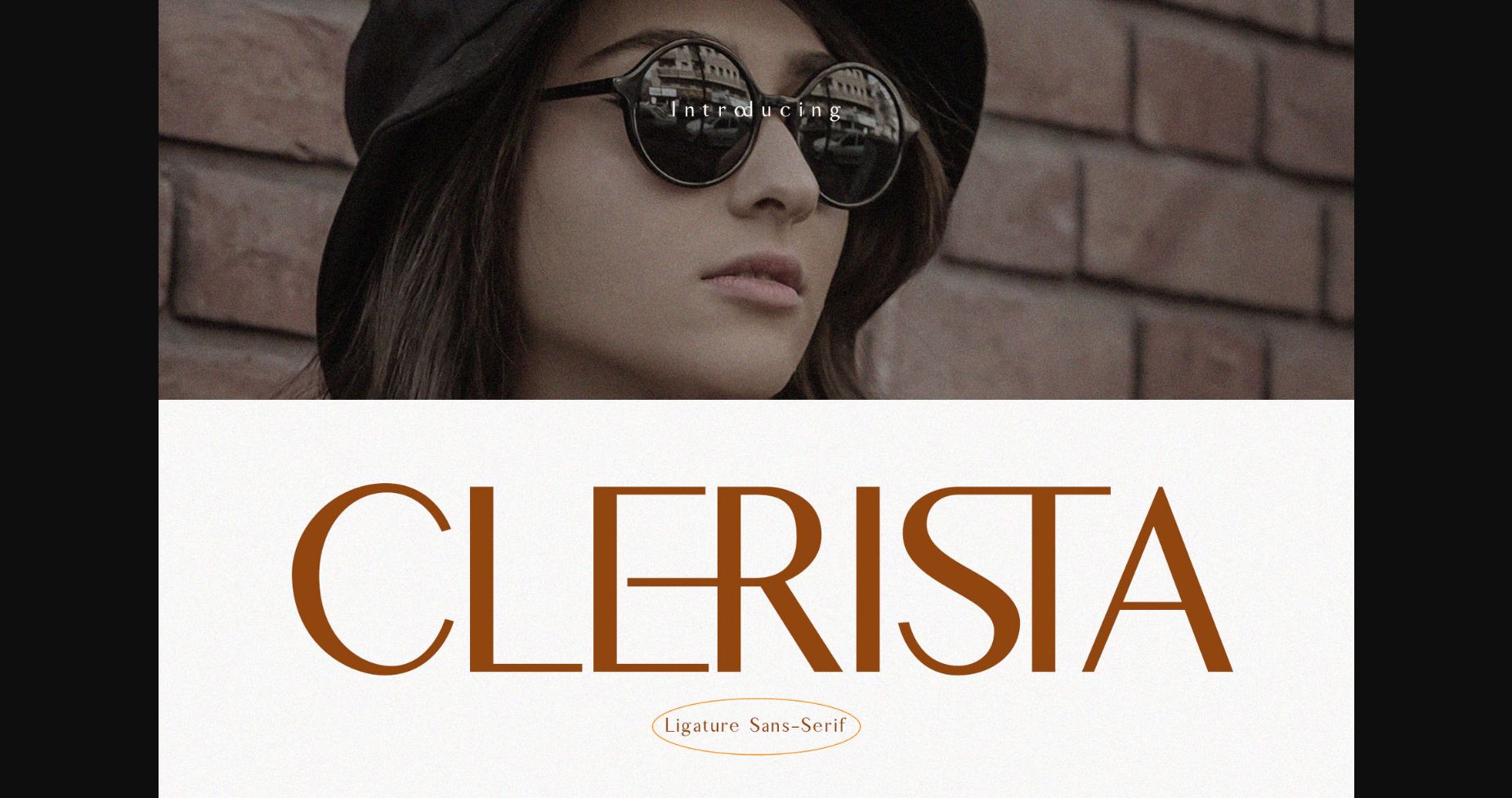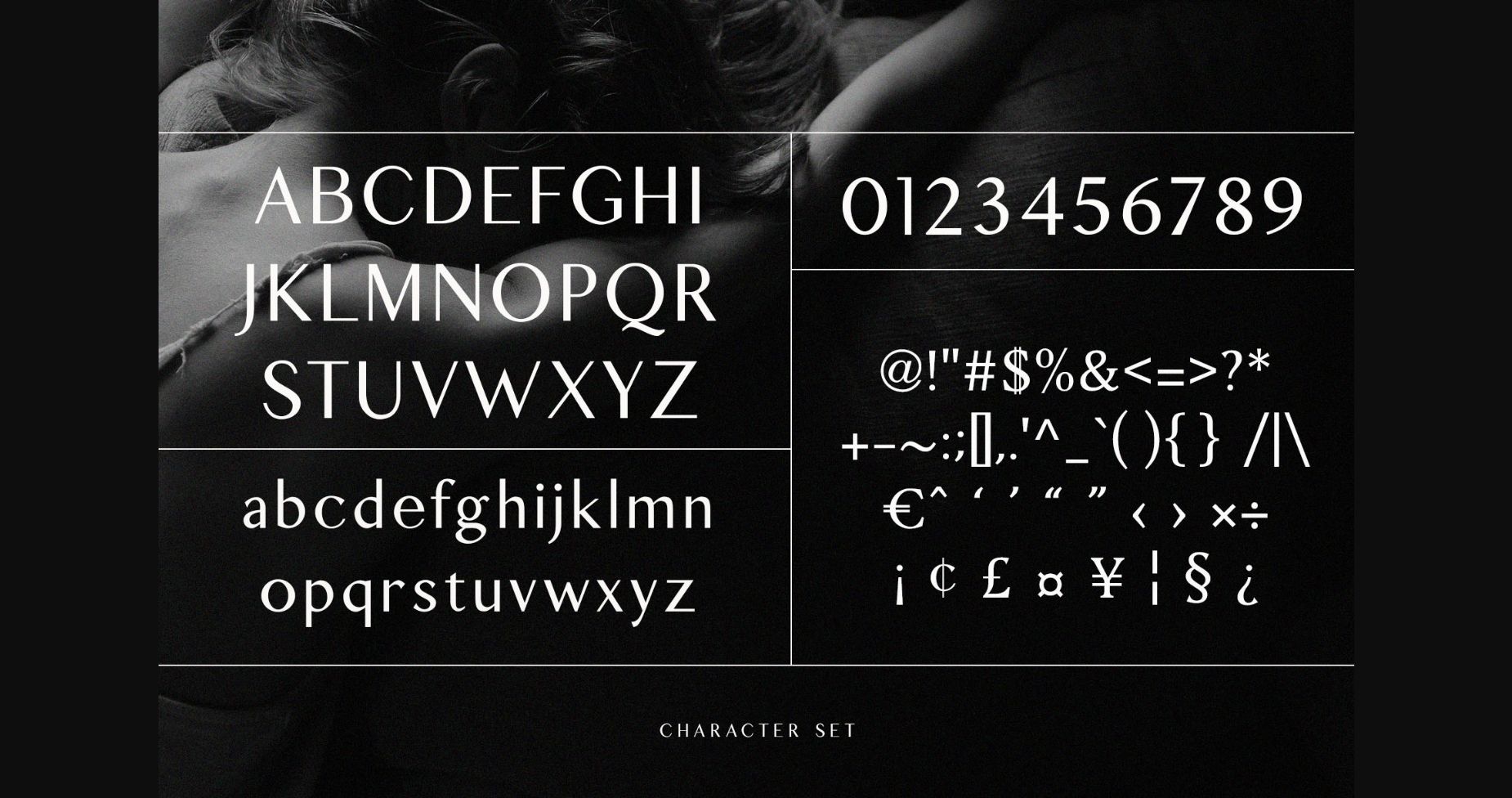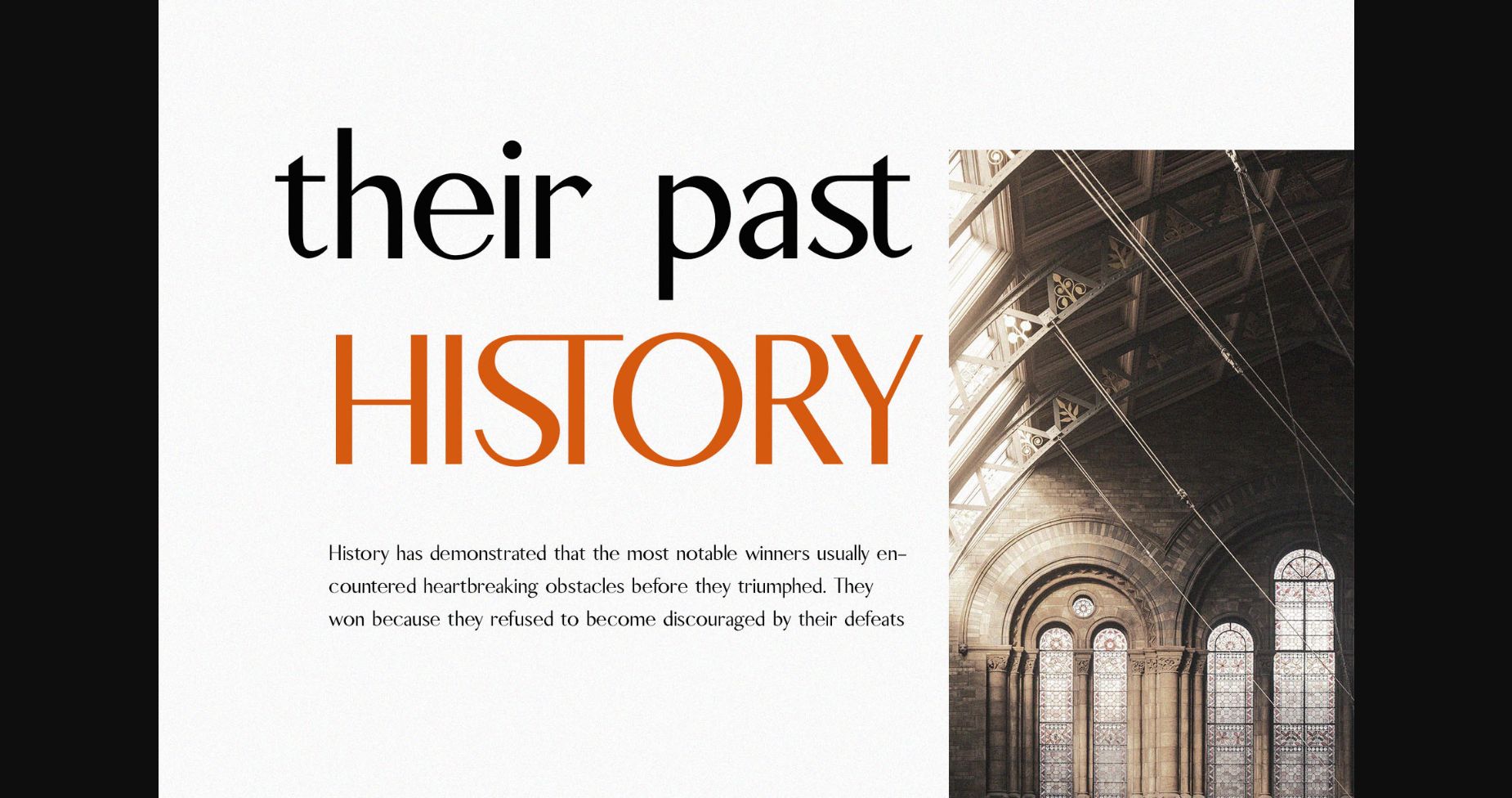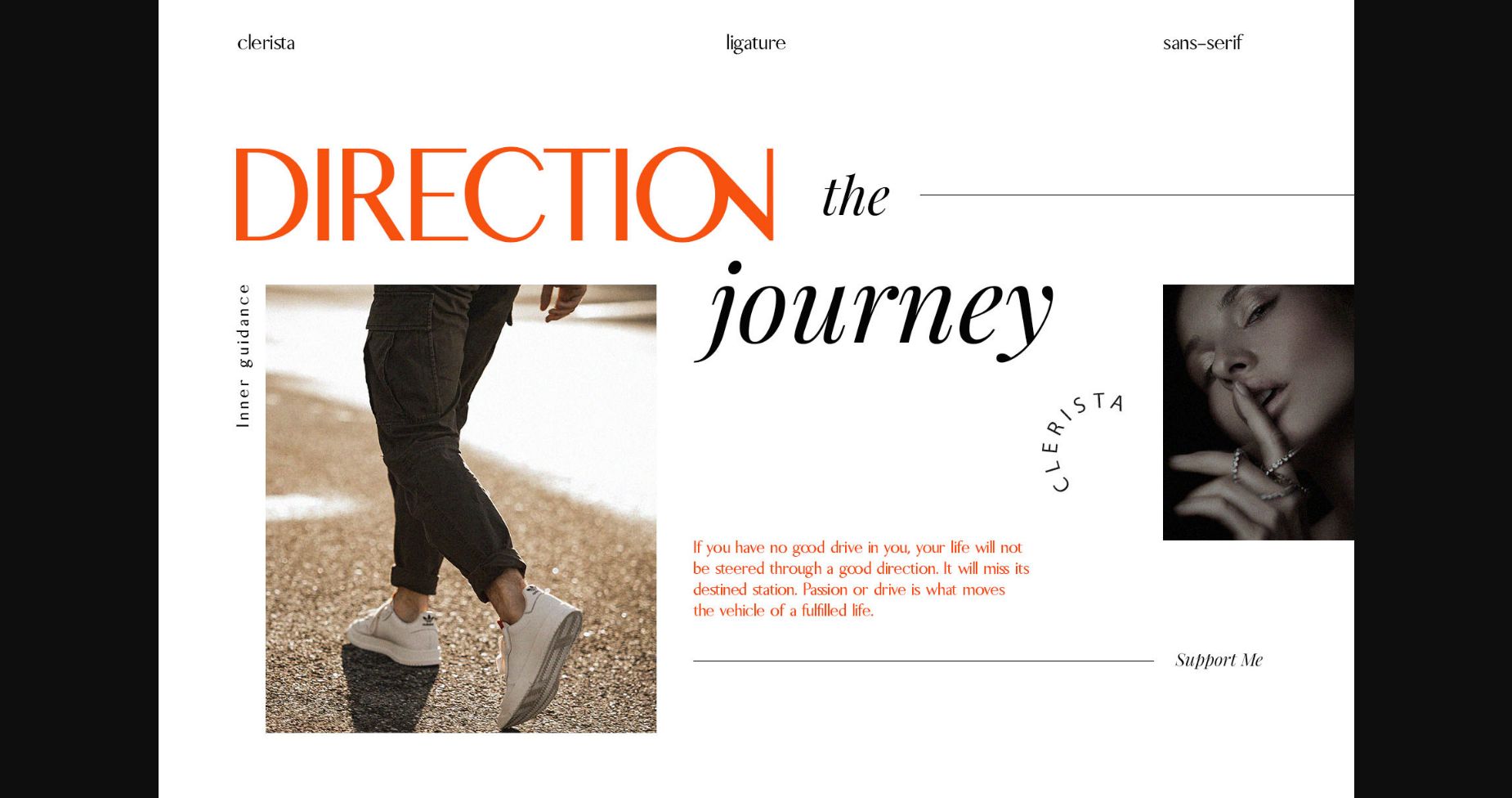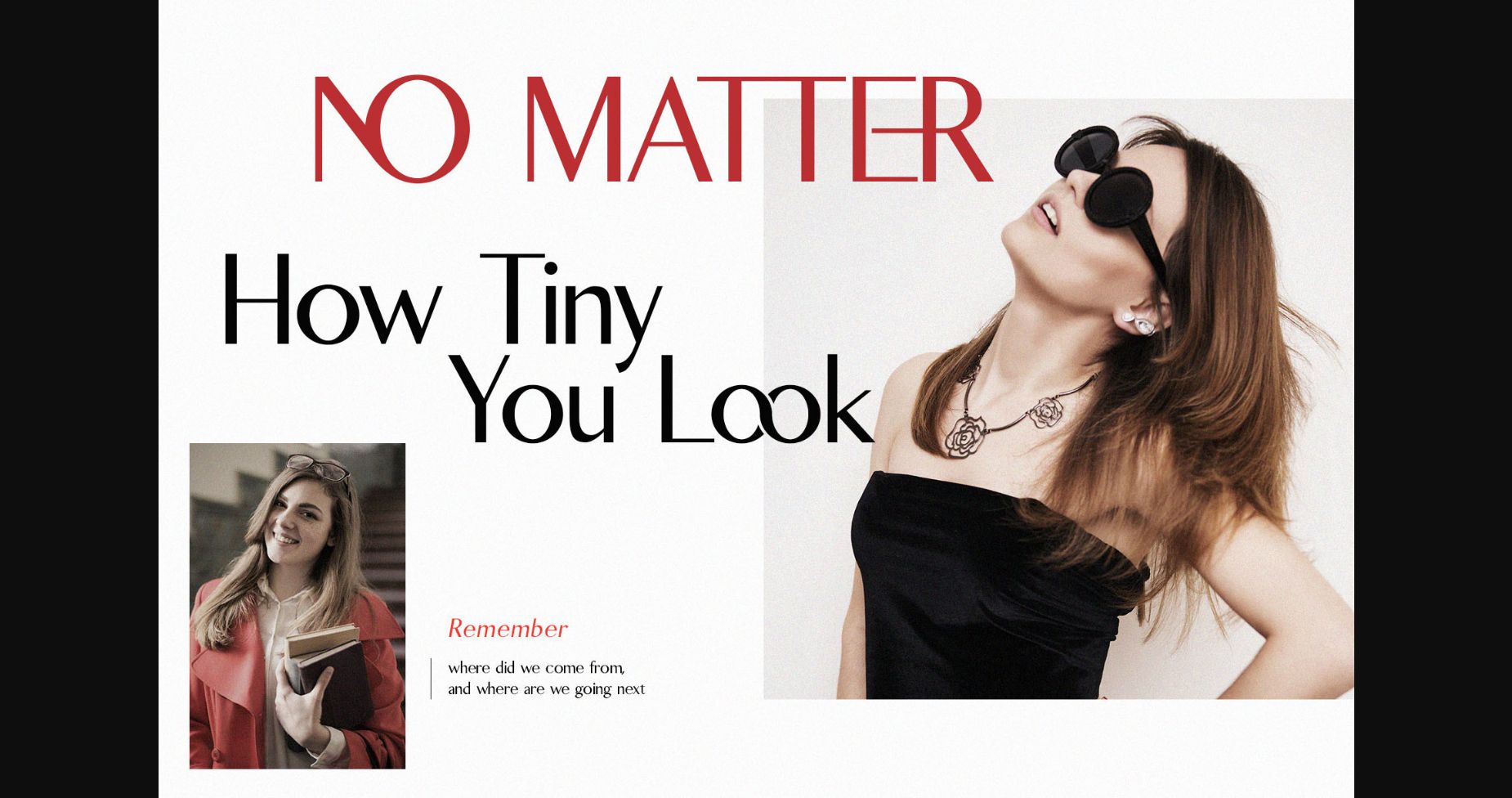
Clerista Font
Clerista Font Poster 1
About Clerista Font
Clerista is a modern sans serif font that emanates a sense of sophistication and versatility. Its clean and minimalist letterforms feature a balanced mix of curves and straight edges, giving it a sense of fluidity and precision. The font’s contemporary and adaptable design is perfect for anything from branding to web design. Clerista’s modern and versatile style is sure to elevate your project.